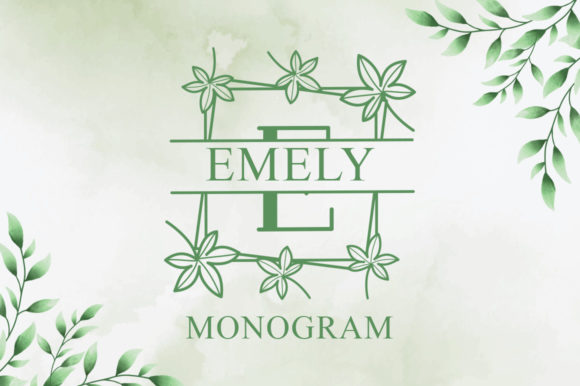
Introducing Emely Monogram Font, the definitive choice for creating captivating designs that leave a lasting impression. This enchanting decorative font is crafted to evoke a sense of playfulness and charm, effortlessly elevating your projects to new heights.
With Emely Monogram, you'll discover a font that's not just aesthetically pleasing but also a powerful marketing tool. Its unique and memorable design will ensure that your creations stand out from the crowd, capturing attention and making a lasting impact.
Whether you're a seasoned designer or just starting your creative journey, Emely Monogram is the perfect font to add a touch of magic to your projects. Its versatility knows no bounds, making it an essential addition to your font library.
Embrace the limitless possibilities of Emely Monogram and unlock a world of creative expression. From stunning logos that command attention to elegant wedding invitations that evoke romance, this font will empower you to create designs that resonate with your audience.
Don't settle for ordinary fonts that blend into the background. Choose Emely Monogram and let your designs shine brighter than ever before. Invest in a font that will elevate your creativity, inspire your imagination, and leave an unforgettable mark on your audience.